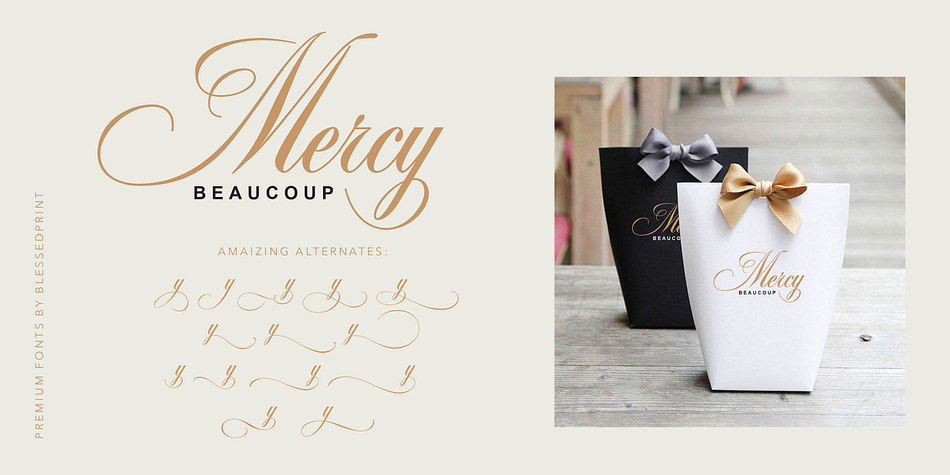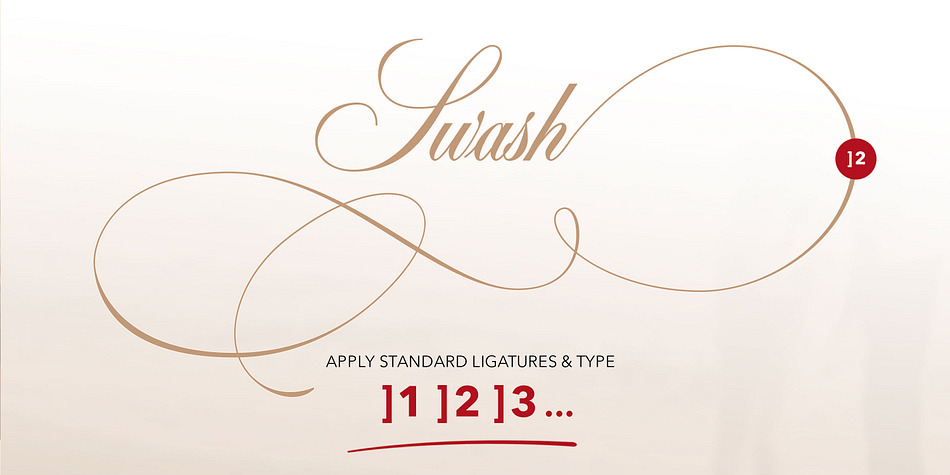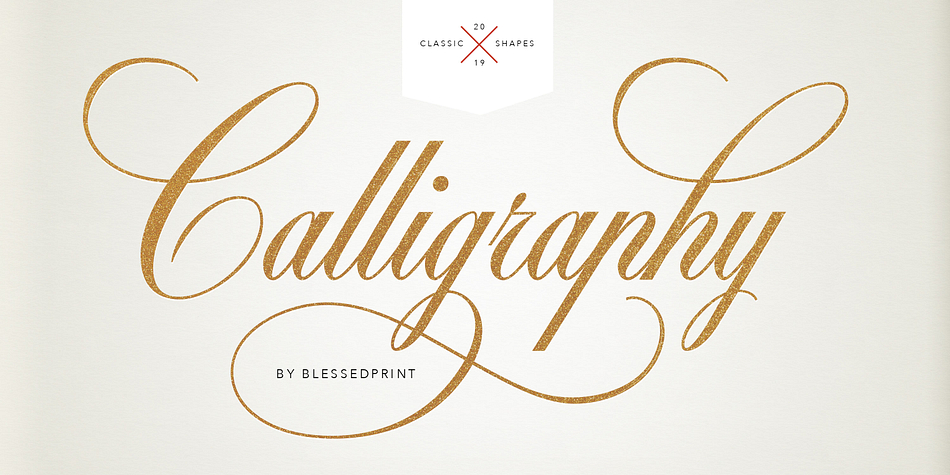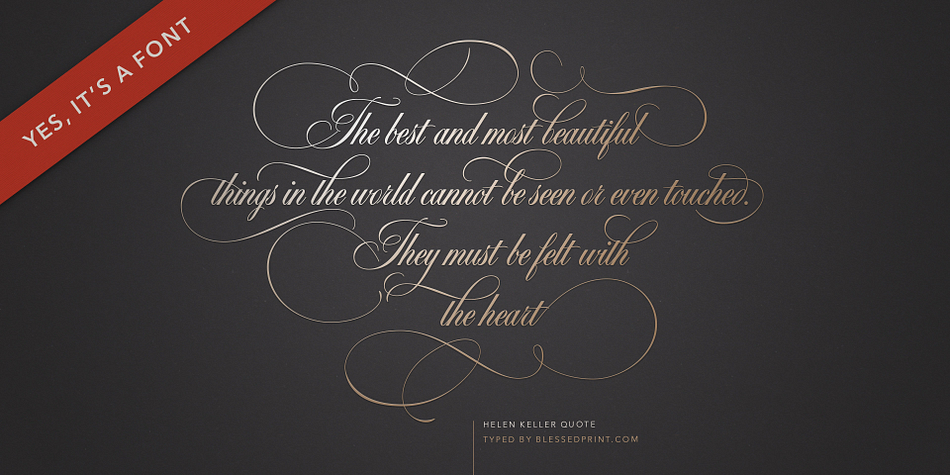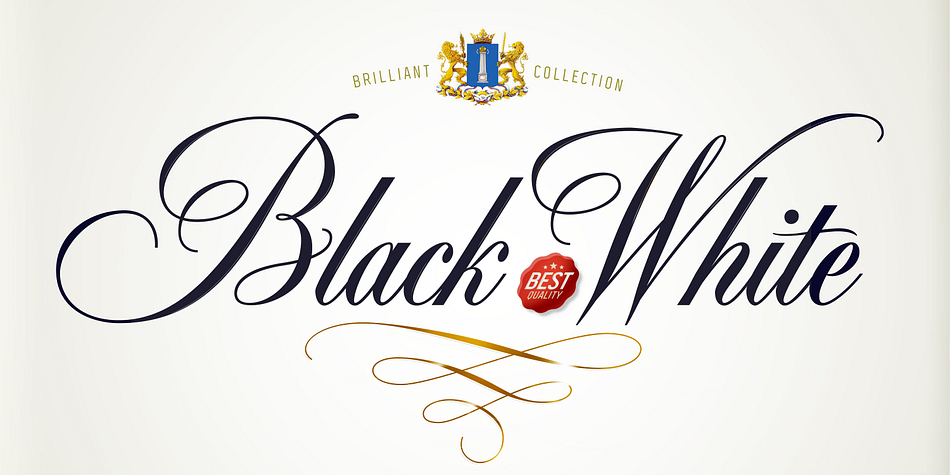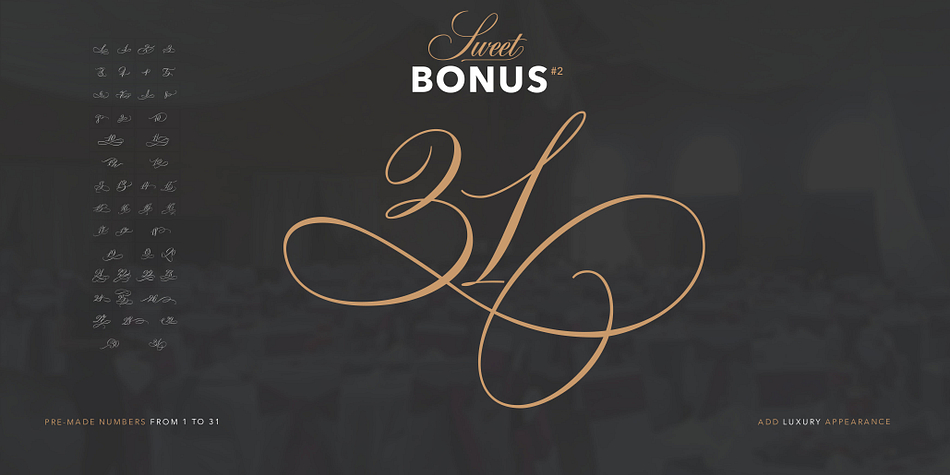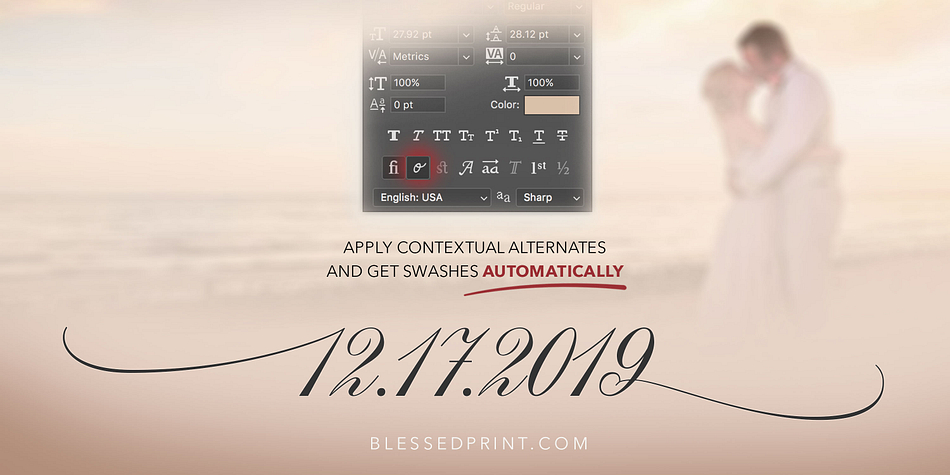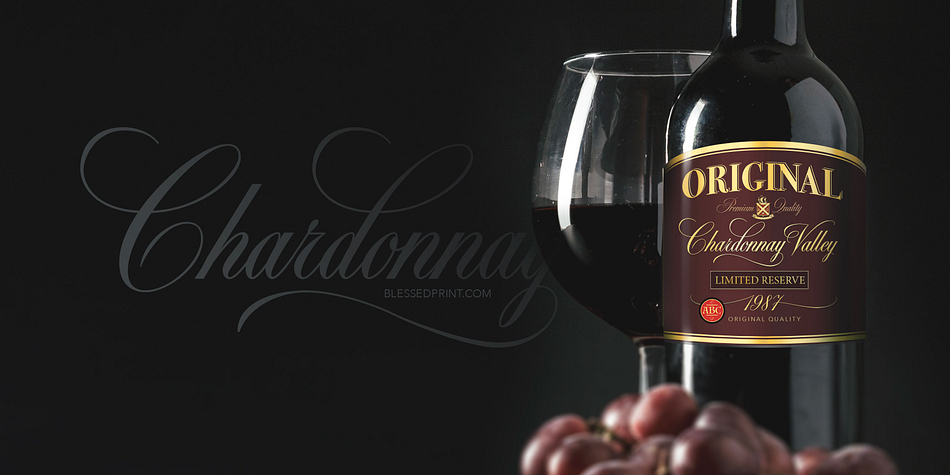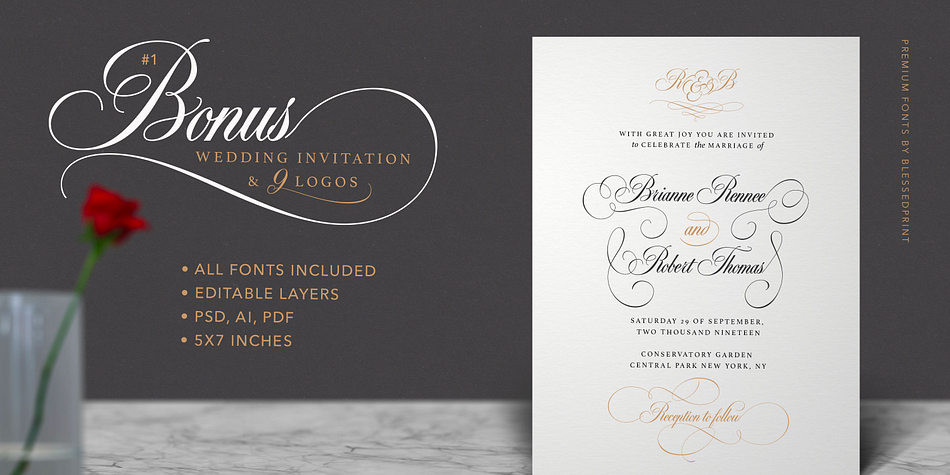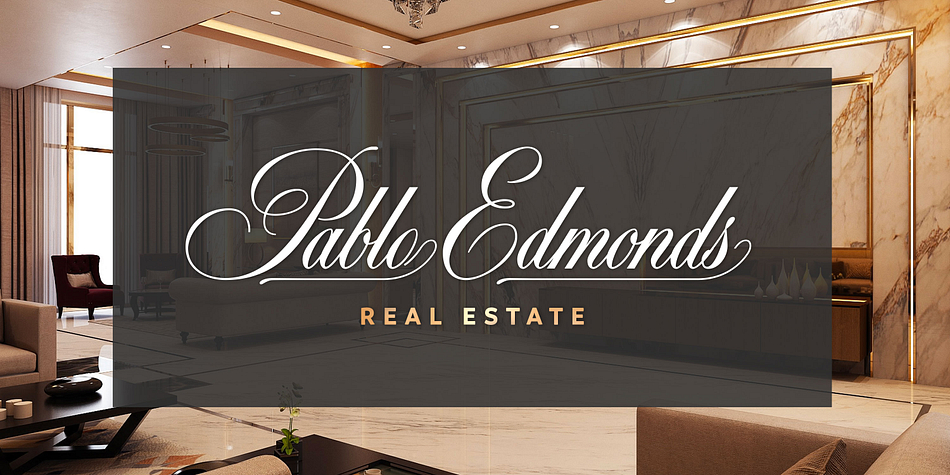
Designed by Dmitrii Mikitenko and Sabina Aliyarova, Black & White is a script font family. This typeface has two styles and was published by Blessed Prints.
Gorgeous, beautiful, elegant, outstanding… and classic? Yes, classic is judged over a period of time to be of the highest quality. It never becomes boring, because of perfect form, perfect appearance. Proud to introduce my new classic and modern, bold & cursive script: Black and White